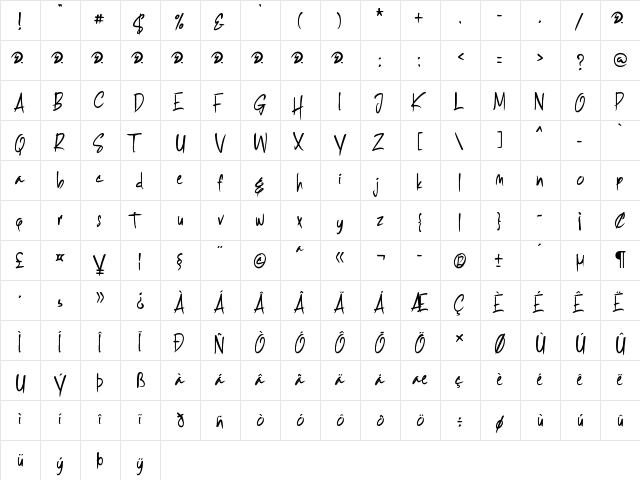
Hormath Regular Font Preview
Hormath Regular
| Designer | Toni Dzulham |
Design Context for Hormath Typeface
Hormath is a composed and adaptable typeface that performs quietly and consistently across a wide range of design contexts.